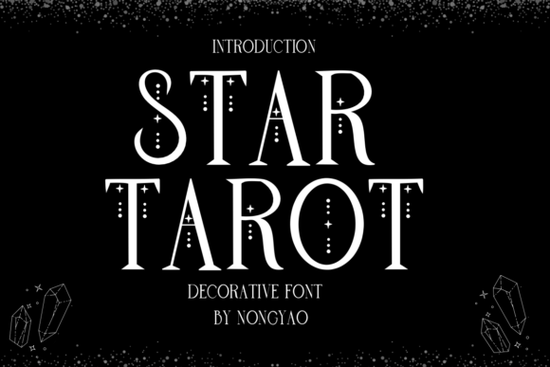
If you’ve been searching for a decorative font that blends mysticism with everyday charm, the Star Tarot Font might be just what your creative toolkit needs. Designed with subtle esoteric flair think delicate lines, celestial curves, and a touch of vintage elegance it’s versatile enough for both personal and commercial projects. Whether you're crafting custom greeting cards, designing social media graphics, or printing inspirational quotes on mugs, this font adds personality without overwhelming your layout.
What makes Star Tarot different from other decorative fonts?
Unlike overly ornate display fonts that only work at large sizes, Star Tarot maintains readability even in smaller applications like journaling or handwritten-style notes. Its letterforms echo tarot symbolism soft arches, star-like terminals, and gentle serifs but stay grounded enough for practical use. You’ll find it especially useful if you’re creating content around spirituality, self-care, astrology, or wellness niches.
For those who enjoy mixing typefaces, Star Tarot pairs beautifully with clean sans-serifs or minimalist scripts. If you like its vibe but want alternatives, check out the dreamy flow of Fox Josie, the bold whimsy of Adam, or the hand-lettered warmth of Katie. Each brings its own mood while staying within the decorative category.
Where can you actually use this font?
Thanks to its balanced design, Star Tarot works across a surprising range of formats:
- Print-on-demand products: T-shirts, tote bags, mugs, and phone cases featuring short affirmations or zodiac-themed quotes.
- Stationery & journals: Custom planners, diary headers, or gratitude logs where a little magic enhances the mood.
- Social content: Instagram quote carousels, Pinterest pins, or TikTok text overlays that lean into mystical aesthetics.
- Event invitations: Birthday cards, moon circle invites, or solstice celebration posters.
Just remember: while it’s decorative, it’s not meant for body text in long-form layouts. Save it for headlines, accents, or short phrases where visual impact matters most.
How does it compare to similar fonts on Creative Fabrica?
Creative Fabrica hosts hundreds of decorative fonts, but few capture this specific blend of ethereal and usable. For example, Secoy Xecore leans more futuristic, while Star Tarot feels timeless like an old grimoire meets modern minimalism. If you're curating a font bundle for spiritual or lifestyle brands, having both gives you stylistic range without losing thematic cohesion.
Tips for getting the best results with Star Tarot
To make the most of this font, consider these practical pointers:
- Use ample spacing: Slightly increase letter-spacing (tracking) to let those delicate details breathe, especially at smaller sizes.
- Limit all-caps usage: The uppercase letters are beautiful but work best as single initials or very short words.
- Pair with neutral backgrounds: Cream, soft gray, or deep navy paper tones enhance its vintage-mystic feel better than bright white or busy patterns.
- Test print first: If using for physical products, always do a test print some fine strokes may need slight thickening depending on your printer or production method.
And don’t forget: Creative Fabrica often includes bonus glyphs, alternate characters, or multilingual support. Open the font file in your design software and check the glyph panel you might discover hidden stars, moons, or swashes that add extra magic.
Ready to try it?
If you create content around intuition, mindfulness, or cosmic themes or simply love fonts with soul Star Tarot offers a distinctive yet functional option. It’s not flashy for the sake of being flashy; it serves a clear purpose with quiet confidence.